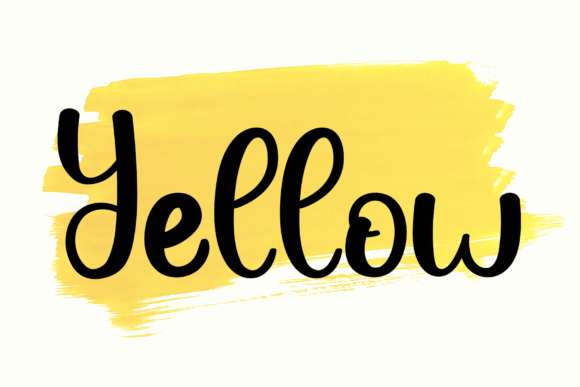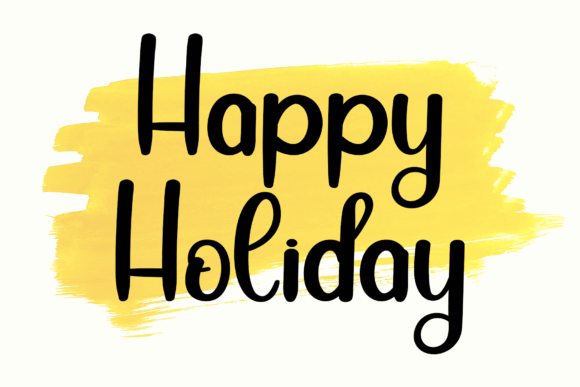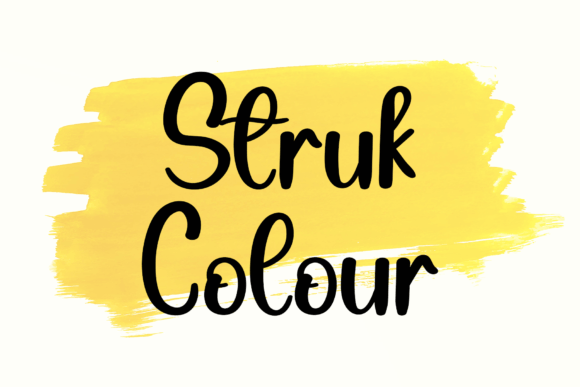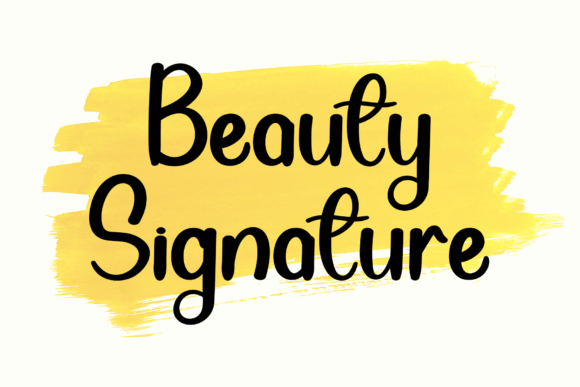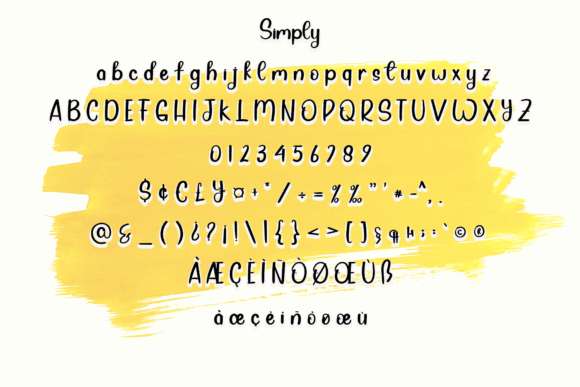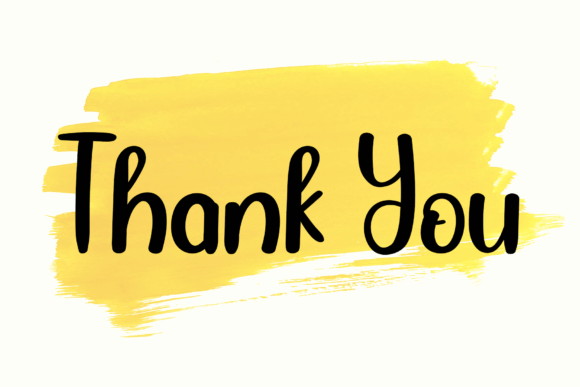
Simply Font
Simply Font: Elegant Handwriting for Your Designs
“Simply” is a neat handwritten font with an elegant touch. It’s perfect for many design projects and can become a favorite for those wanting a timeless style.
Key Features of Simply Font
• Neat Appearance: Simply font combines neatness with elegance.
• Versatile Use: Suitable for various projects, from branding to invitations.
• Timeless Style: Creates designs that are both beautiful and sophisticated.
Ideal Applications
Simply font’s elegant style is perfect for creating refined logo designs and branding materials that stand out.
Wedding Invitations
The font’s graceful characters are ideal for wedding invitations, adding a touch of class to your special day.
Poster Design
Use Simply to create eye-catching posters that convey sophistication and style.
Why Choose Simply Font?
Simply font is more than just a typeface; it’s a design tool that can elevate your projects. Its versatility allows it to shine in various contexts, including:
This adaptability makes Simply font valuable for designers and brands seeking a consistent yet impactful visual identity.
By using Simply font, you open up a world of creative possibilities. Its elegant style can add a touch of refinement to any project, whether you’re working on digital or print media.
If you’re looking for a font that blends neatness with elegance, Simply is an excellent choice. It’s perfect for projects that need sophistication and grace. With Simply, your designs will stand out with a timeless flair.
Explore the possibilities with Simply font and see how this calligraphy-inspired typeface can transform your designs. From elegant logos to impactful marketing materials, Simply font offers the perfect mix of style to enhance your visual projects.